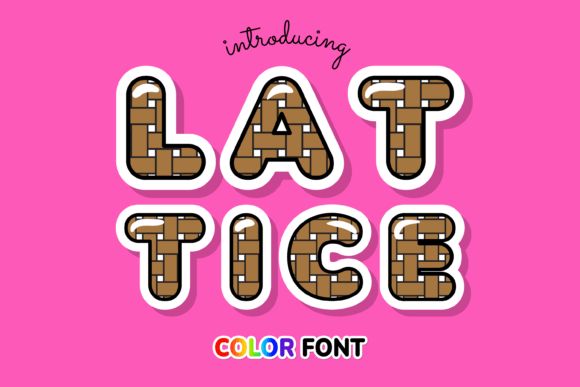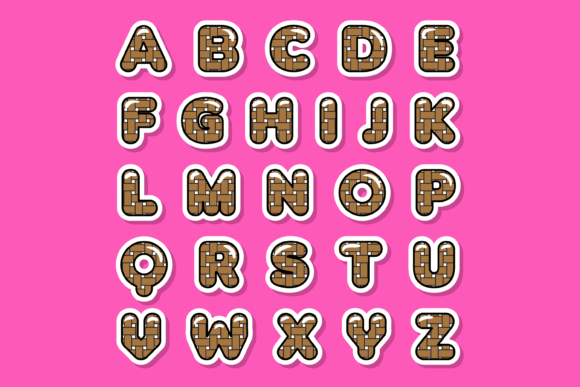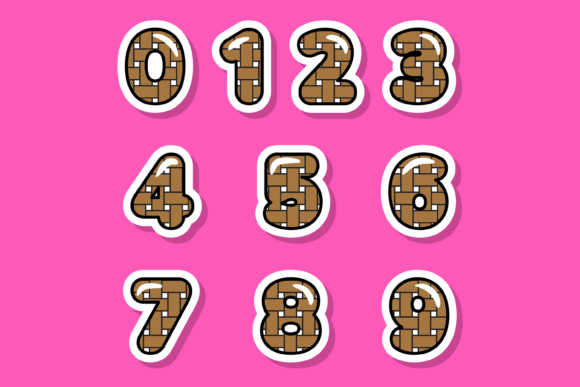
About Lattice Font
Lattice is a captivating and versatile color font that adds a unique and stylish touch to your designs. Whether you’re working on custom designs, DIY crafts, or any creative project that calls for a lovely and eye-catching element, Lattice is an excellent choice that will take your creations to the next level.
With its intricate lattice-like patterns and vibrant colors, this font effortlessly captures attention and creates a visually stunning effect. The interwoven lines and shapes of the font give it a sense of depth and dimension, making it a standout option for various design purposes.
Lattice’s versatility allows it to shine in different applications. Whether you’re designing invitations, posters, social media graphics, or even experimenting with mixed media art, this font will add a captivating and dynamic element to your work.
The font’s customizable features give you the freedom to adjust the size, position, and color of the lattice patterns, allowing for endless creative possibilities. Its PUA encoding ensures easy access to all the unique glyphs and ligatures, making it effortless to incorporate into your designs.
Lattice’s cool color palette further enhances its visual appeal, allowing you to create harmonious and eye-catching combinations. From bold and contrasting colors to subtle and soothing tones, this font will bring your color choices to life and add depth to your designs.
Whether you’re a professional designer or an enthusiastic DIYer, Lattice offers an amazing opportunity to infuse your projects with a touch of creativity and sophistication. Its intricate details and stunning colors make every letter a work of art, ensuring that your designs stand out and leave a lasting impression.
Choose Lattice as your go-to color font and let its captivating design and vibrant colors elevate your creative endeavors. With this font, your designs will exude elegance, charm, and a touch of whimsy, making it an incredible choice for any project that requires a lovely touch and a dash of artistic flair.